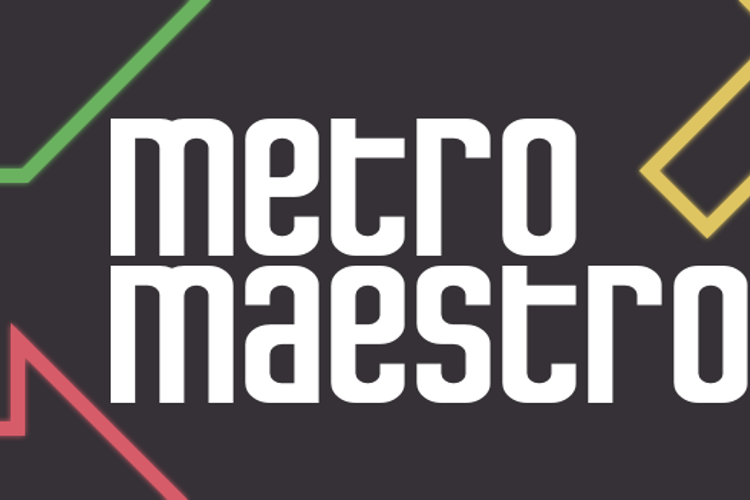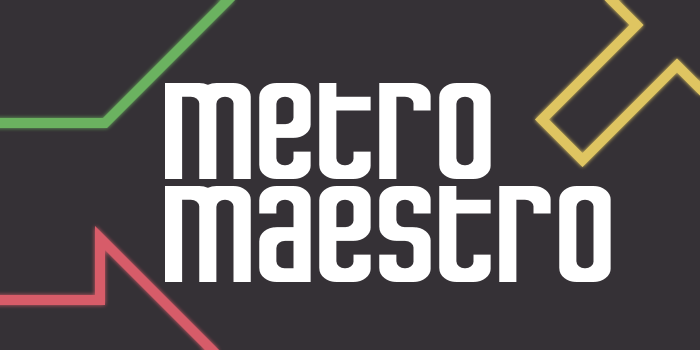
Metro Maestro Font
A font made for a friend's board game! This gives me a strong "film credits" feeling with its high impact and simple geometry.
RECENTLY UPDATED! Several glyphs were made slightly more clear to read.